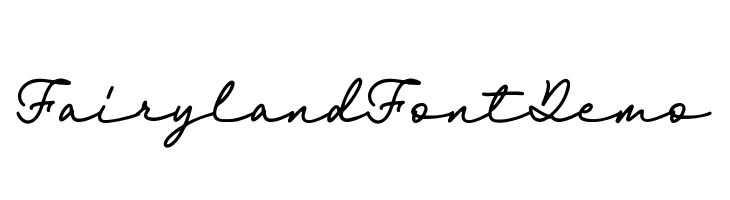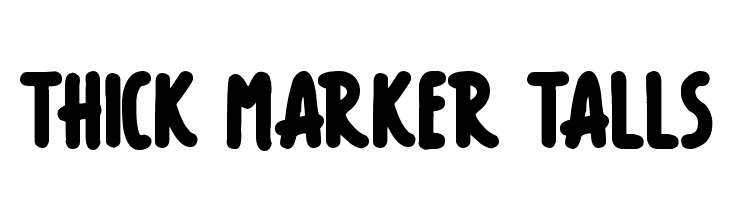
A bold, geometric font with a modern, angular design.
A bold, modern font with a handcrafted, edgy appearance.
A playful, whimsical handwritten font with looping, flowing letterforms.
A bold, italic serif font with a classic and elegant style.
A bold, italicized font with a modern, geometric style.
A playful, bold font with rounded edges and a friendly appearance.